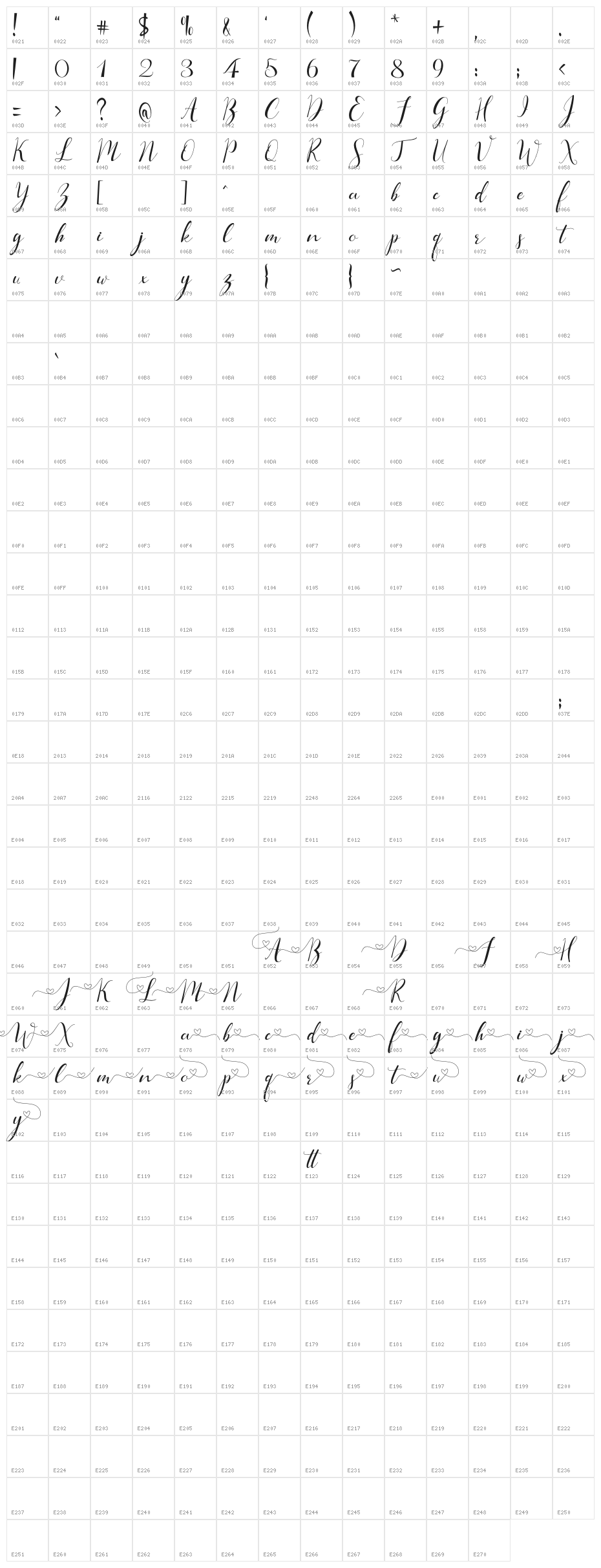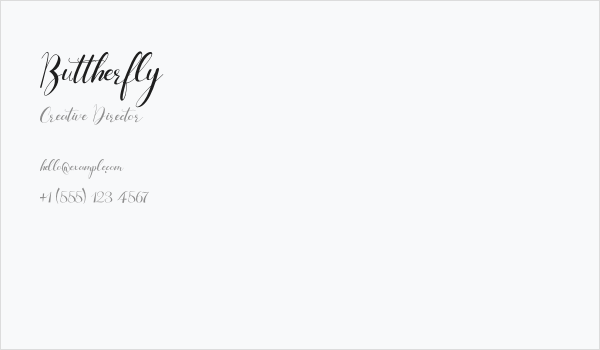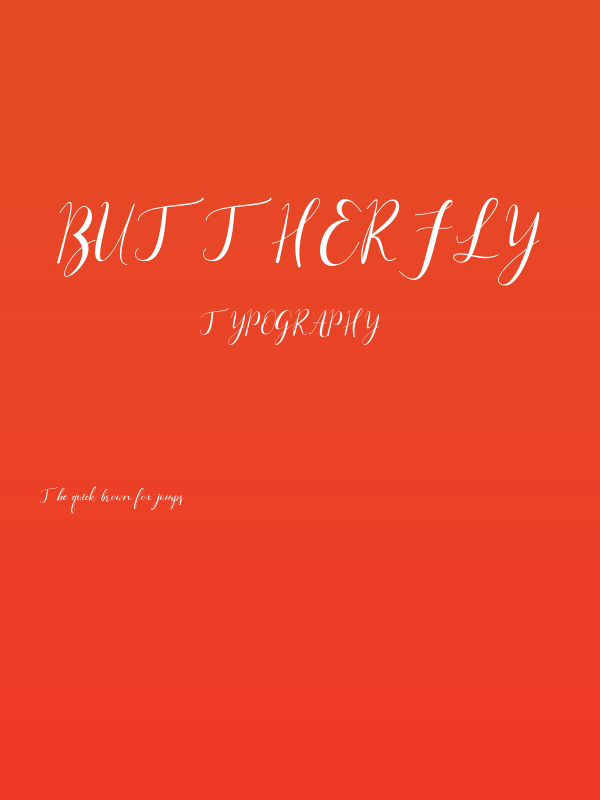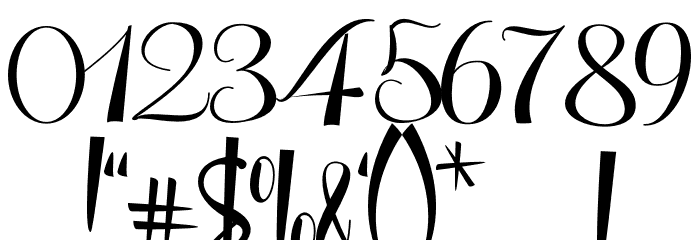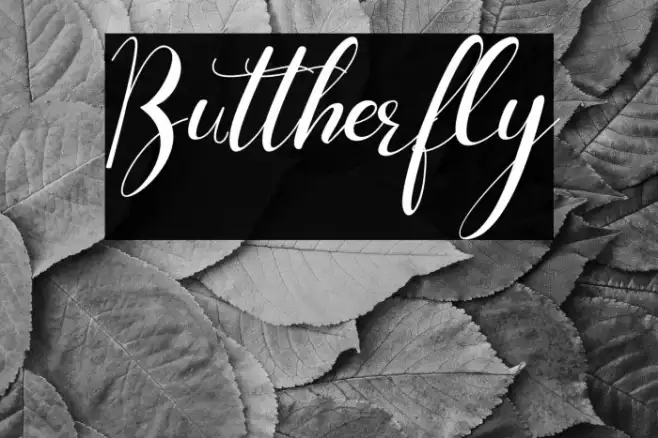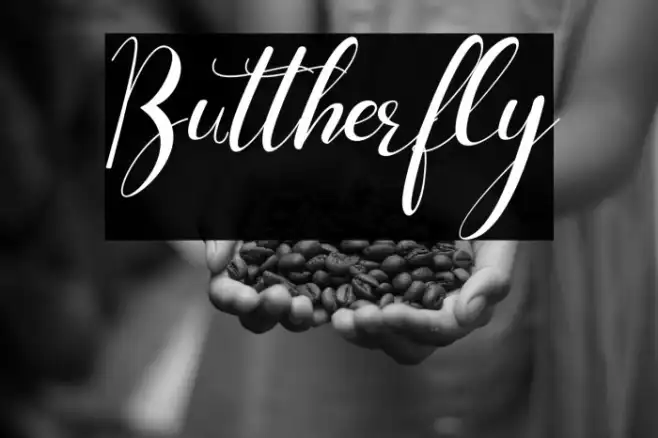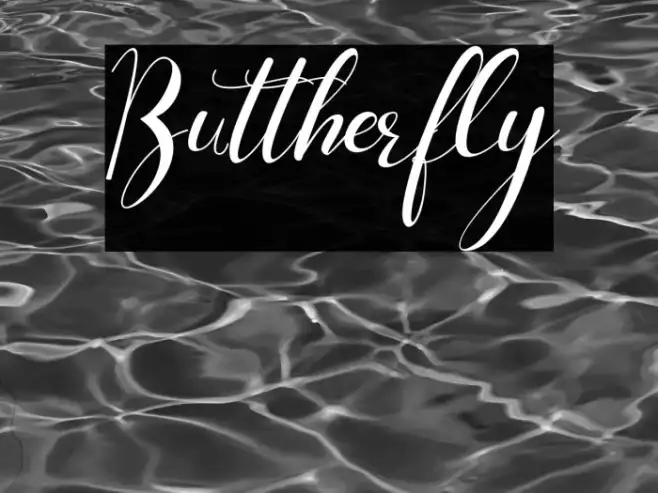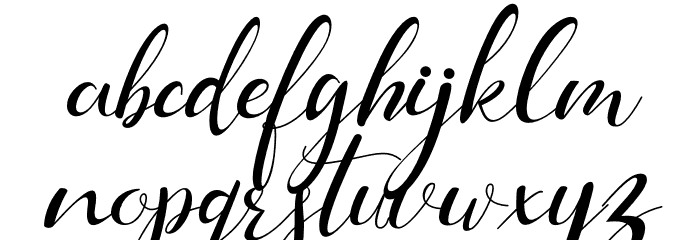
Buttherfly Font
Buttherfly Description
This elegant script font exudes a sense of sophistication and fluidity, characterized by its graceful, flowing lines and delicate curves. The uppercase letters are tall and slender, with sweeping ascenders and descenders that create a sense of movement and rhythm. The lowercase letters are equally refined, with a harmonious balance between thick and thin strokes that add to the font's overall elegance. The numerals are stylishly designed, maintaining the font's cohesive aesthetic. Special characters are thoughtfully integrated, ensuring versatility in various design applications. This font is perfect for projects that require a touch of elegance and class.
| Proposed Projects | Ideal for wedding invitations, luxury branding, elegant packaging, and sophisticated editorial design. |